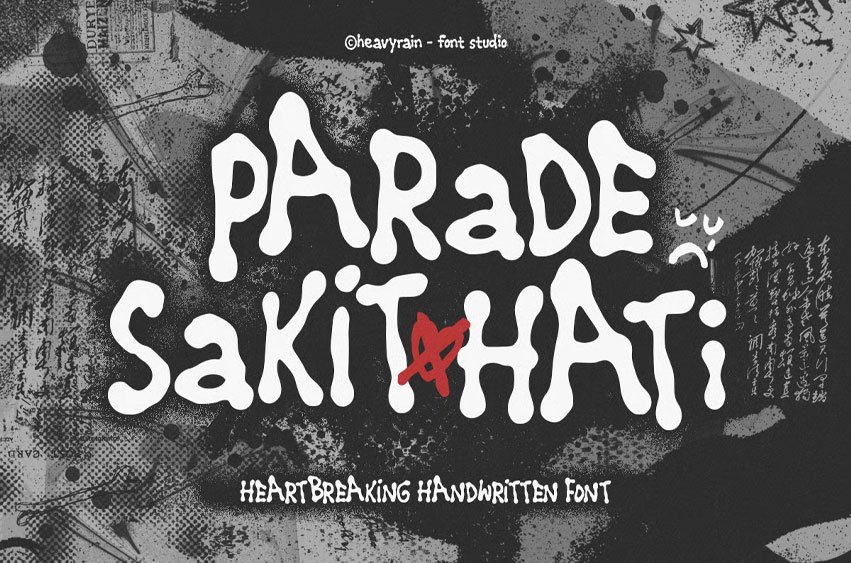
Parade Sakit Hati Font
Parade Sakit Hati Font is a raw handwritten display font inspired by heartbreak, emotional expression, and the imperfect beauty of handwritten notes. Featuring organic letterforms, uneven shapes, and expressive strokes, this font captures the feeling of vulnerability, nostalgia, and rebellion in every character.
Its handcrafted style creates a unique visual identity that feels personal, emotional, and authentic. Whether you’re designing music artwork, album covers, emotional quotes, indie branding, book covers, or social media content, Parade Sakit Hati adds a bold handwritten personality that stands out from ordinary typography.
Designed for creatives who embrace imperfection, this font combines expressive handwriting with a modern alternative aesthetic, making every headline feel honest, memorable, and full of emotion.
Perfect For: Branding, Logo Design, Posters & Flyers, Album Covers, Music Artwork, Gaming Titles, YouTube Thumbnails, Packaging Design, Social Media Graphics, Event Promotions, Book Covers, Creative Headlines, Urban & Graffiti Themes.